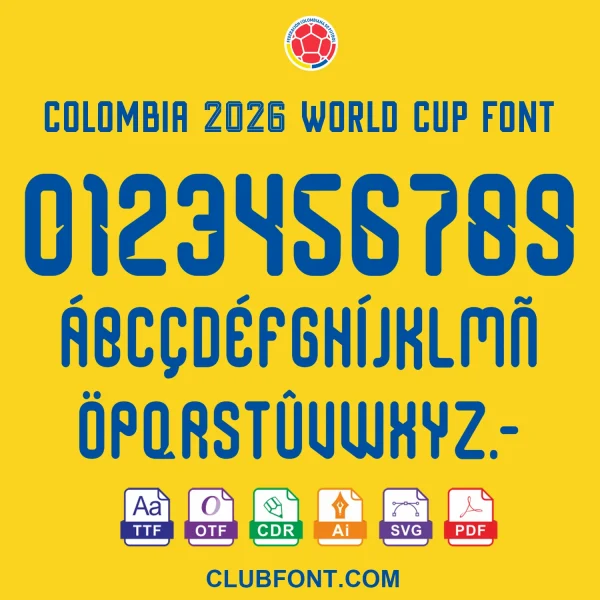
Bring the passion of Los Cafeteros to your creative projects with our exclusive Colombia 2026 World Cup Font Download. Designed for professional designers, apparel creators, and die-hard football fans, this kit captures the dynamic spirit of the Colombia National Team jerseys set to dominate the 2026 FIFA World Cup.
This isn’t just a font; it’s a toolkit for creativity. The clean, bold lines are optimized for high-visibility applications, making it the best choice for anyone searching for a reliable Colombia 2026 World Cup Font Download.